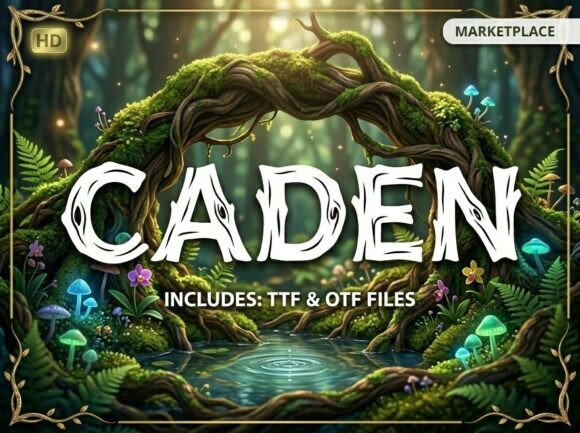
Caden: A Display Typeface for Unforgettable Branding
There’s a specific moment in any creative project where the standard, safe choices just won’t cut it. You’re designing a logo that needs to land with impact, crafting a headline for a magazine cover, or developing packaging for a product that demands to be picked up. In these moments, you need a typeface with a distinct voice, not just a set of letters. This is where Caden enters the conversation. It’s a decorative display font engineered for high-stakes visual moments, built to be the focal point rather than a supporting player.
Defining the Visual Character
Caden’s personality is assertive and artistic. Its letterforms are crafted with unique stylistic elements that give it a strong, contemporary aesthetic. Think of it as a premium font with a clear point of view. It’s not a quiet workhorse serif font or a neutral sans serif font. Instead, it occupies the space of a bold display font, designed specifically for short-form, high-impact text where every character contributes to the overall visual narrative. The finish is polished and professional, ensuring that its artistic flair doesn’t come at the cost of clarity or refinement. It strikes a balance between being expressive and being usable in commercial contexts.
Strategic Applications: Where Caden Truly Shines
Understanding a font’s strengths is key to using it effectively. Caden is not your body copy solution; it’s your headline hero. Its design makes it exceptionally well-suited for projects where visual hierarchy and brand perception are paramount.
Making Caden Work for Your Project
Choosing the right typeface is a critical decision. Here’s a practical guide to evaluating and implementing Caden to ensure it enhances your brand identity and project goals.
Evaluate the Fit and Test Thoroughly
Before committing, consider your project’s voice. Is your brand more classic and reserved, or is it contemporary and bold? Caden suits the latter. A crucial step is to test it with your actual content. Type out your brand name, your key headlines. Does it feel right? Does it convey the intended emotion? Pay close attention to letter spacing (tracking) and line spacing (leading), as these can dramatically affect its display performance.
Mastering Font Pairing
Because Caden is a strong stylistic statement, pairing it thoughtfully is essential for a professional result. The goal is contrast and balance. For body text or supporting information, pair it with a clean, highly readable sans serif font or a classic serif font. A simple script font or handwritten font could also work for a specific, artistic feel, but ensure legibility remains the priority. The headline (Caden) grabs attention; the supporting typeface carries the detailed information.
In a landscape of predictable modern typography, choosing a display font like Caden is a strategic decision. It’s a design asset